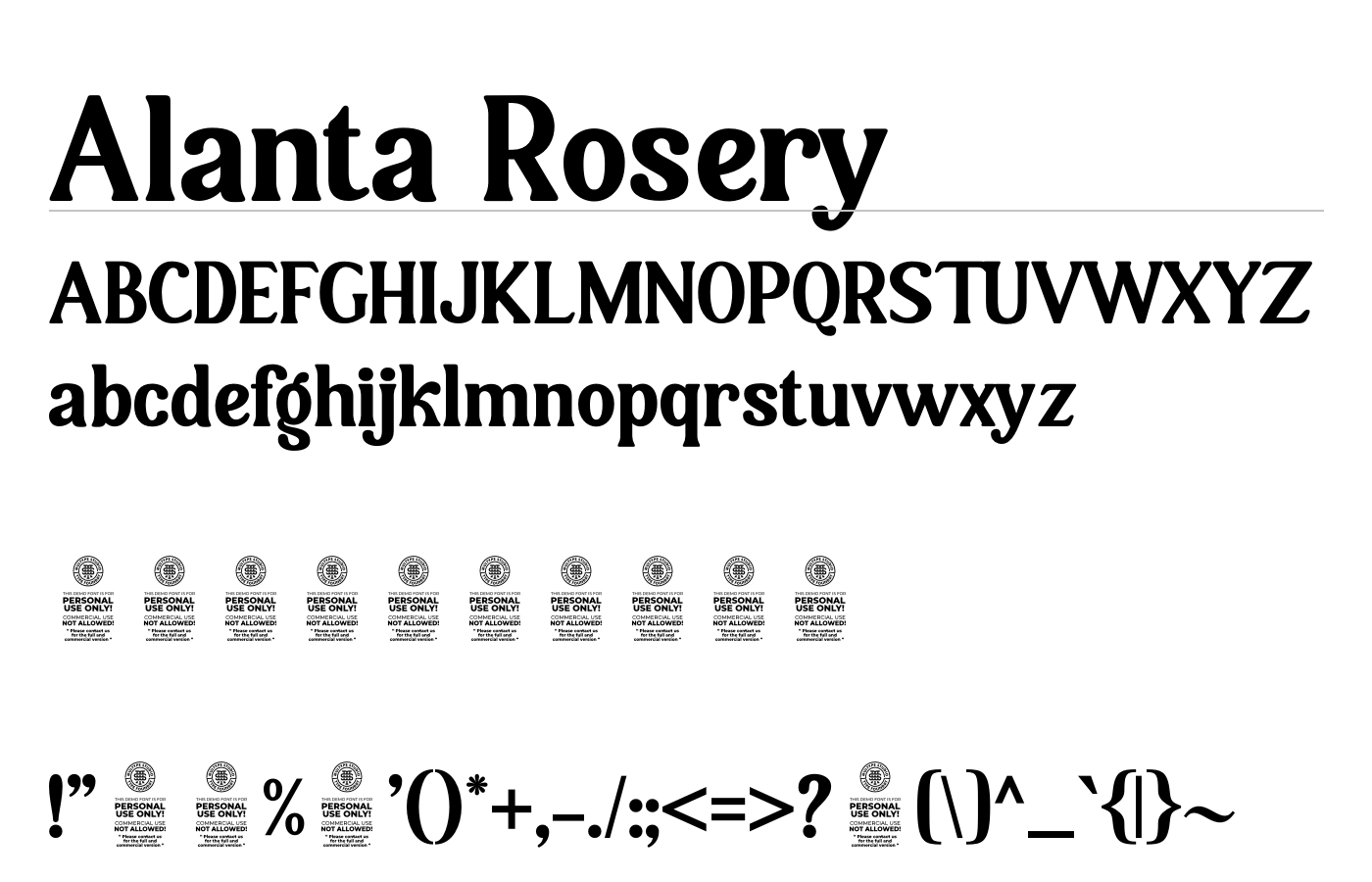
Alanta Rosery is a bold serif font with a classic yet sturdy feel, featuring sharp, bracketed serifs and moderate stroke contrast. Its slightly condensed width and distinctive letterforms give it a strong presence, making it perfect for branding, headlines, and editorial use where a confident, timeless look is desired. This font balances elegance with readability, lending an air of tradition and authority while remaining versatile for modern design contexts.
Alanta Rosery Font
About Alanta Rosery Font